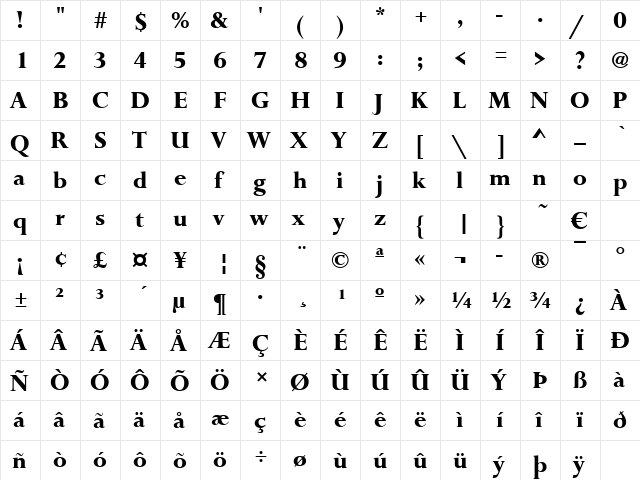
Toujours Bold
Design Context for Toujours Typeface
Toujours takes a measured approach to typography — its balanced proportions and neutral character make it a reliable workhorse for both digital and print work. Its bold stroke weight gives it real presence on the page.